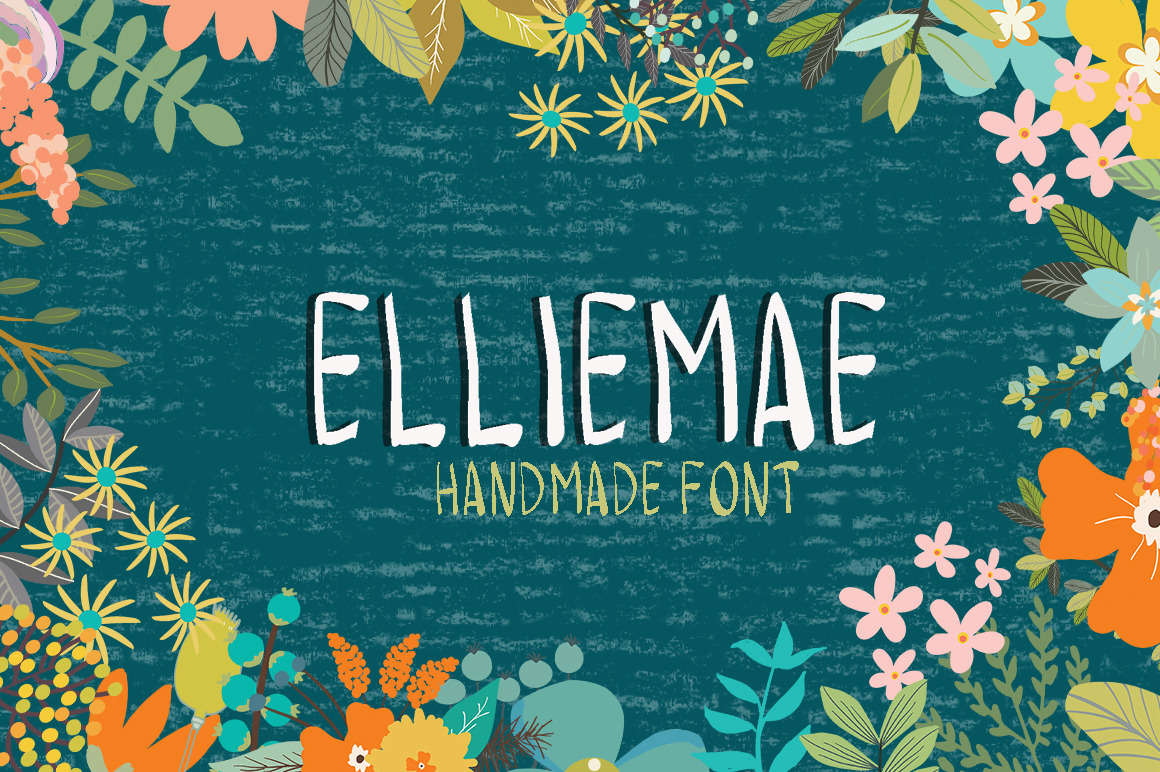
hand drawn font-Elliemae
Drum roll please! Meet Elliemae, my first font. Fun and quirky this hand drawn all caps font is perfect for a header, banner or a card. Enjoy!!!